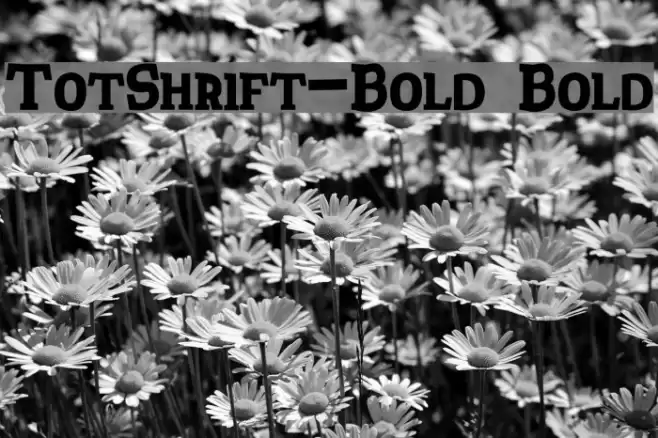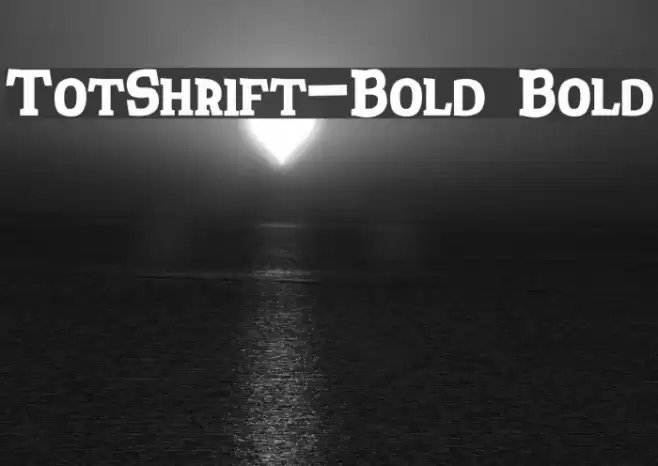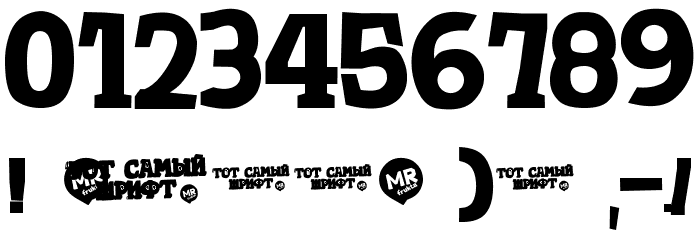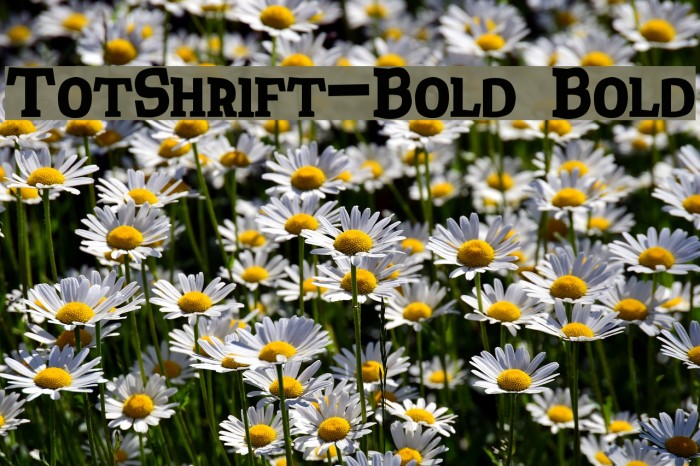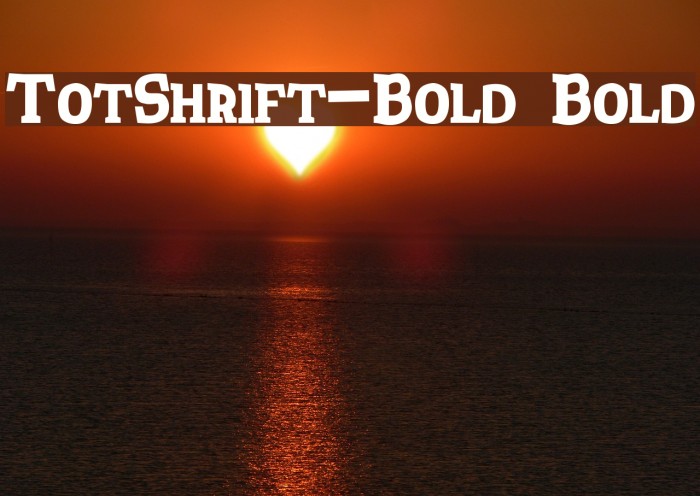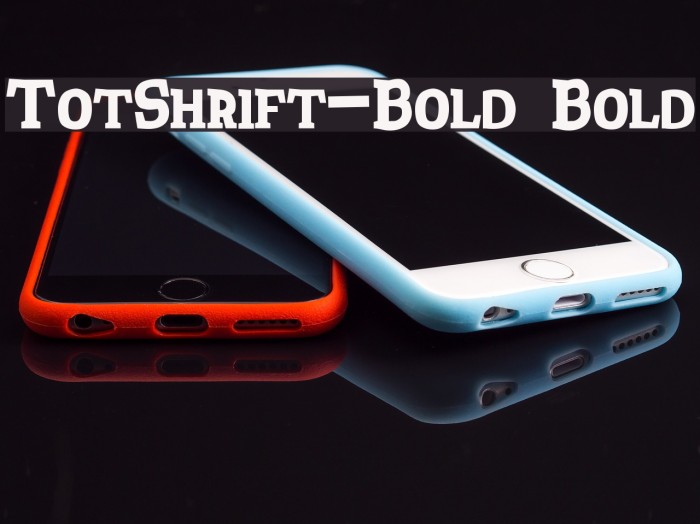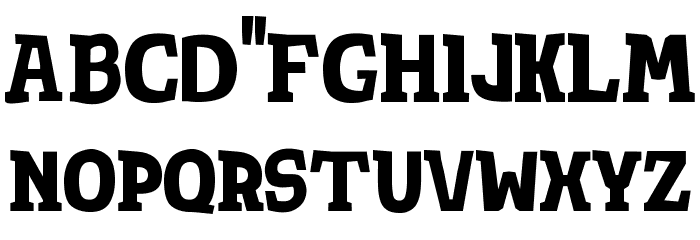
TotShrift-Bold Bold Font
TotShrift-Bold Bold Description
This bold and impactful font features thick, robust strokes that convey a sense of strength and authority. The characters are well-defined with a slight curvature, adding a touch of softness to the otherwise strong appearance. The uppercase letters are particularly striking, with a uniform height that ensures readability and consistency. The numerals are equally bold, maintaining the font's overall aesthetic. Special characters are included, providing versatility for various design needs. This font is ideal for making a statement, whether in headlines, posters, or branding materials.
A bold, impactful font with strong, thick strokes and slight curvature from Uncategorized fonts.